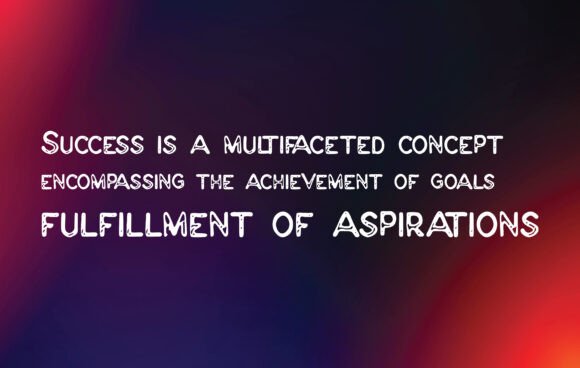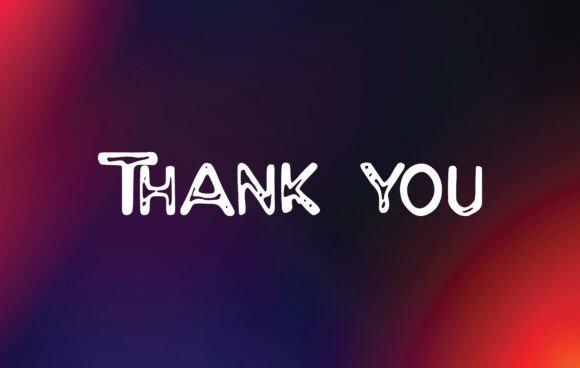
Introduction to Kingsley Font Font
Fonts play a crucial role in design, and the Kingsley Font font is a typeface that brings both character and versatility to any project. Whether you’re working on a branding project, a website, or a print design, the Kingsley Font font offers a unique style that can elevate your work.
Kingsley is a lovely and beautiful handwritten font.
This font has the potential to take your creative ideas to the highest level It is the best choice for creating eye catching logos, branding and quotes.
Key Features of Kingsley Font Font
Why Choose Kingsley Font Font?
The Kingsley Font font is more than just a typeface – it’s a design tool that helps you communicate your message with style and clarity. Its unique character set and versatile design make it suitable for a wide range of applications, from elegant invitations to bold headlines.
With its carefully crafted letterforms and balanced proportions, the Kingsley Font font ensures readability and visual appeal across all mediums.
What makes Kingsley Font font special?
The Kingsley Font font stands out with its unique design, exceptional readability, and versatility across various design applications.